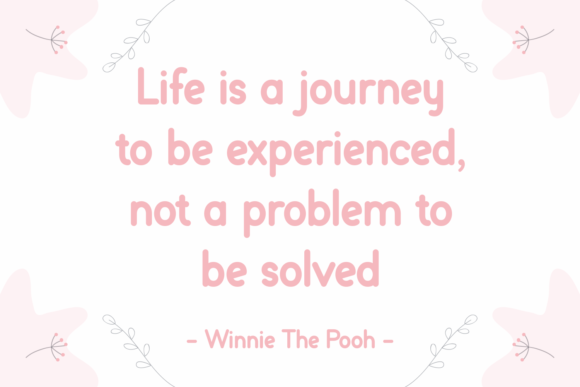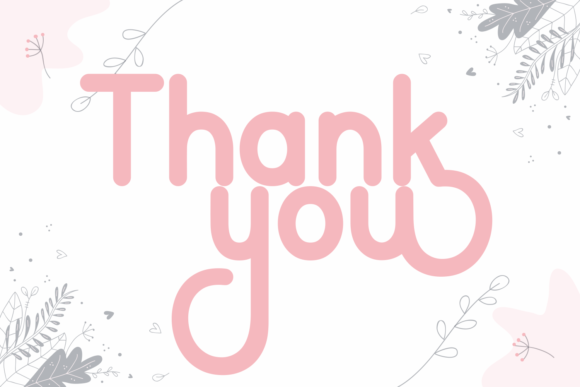
Introducing Calyna Font: The Sweet and Friendly Display Font You Need
Are you tired of using the same old fonts in your designs? Do you want to add a touch of sweetness and friendliness to your creations? Look no further than Calyna Font, a delightful display font that’s sure to elevate your font library. In this article, we’ll dive into the world of Calyna Font, exploring its features, benefits, and uses, and why it’s an incredibly valuable asset for designers and crafters alike.
What is Calyna Font?
Calyna Font is a sweet and friendly display font designed to add a personal touch to your designs. With its unique and charming lettering style, Calyna Font is perfect for a wide range of projects, from branding and advertising to crafting and DIY tutorials. Whether you’re creating a logo, a poster, or a social media graphic, Calyna Font is sure to make your design stand out.
Features of Calyna Font
So, what makes Calyna Font so special? Here are just a few of its key features:
- Unique lettering style: Calyna Font boasts a distinctive and eye-catching lettering style that’s both sweet and sophisticated.
- High-quality design: With its clear and crisp lines, Calyna Font is perfect for use in both digital and print designs.
- Versatile: Calyna Font can be used for a wide range of projects, from formal and professional designs to more playful and creative ones.
- Easily readable: Despite its unique style, Calyna Font is incredibly easy to read, making it perfect for use in body text as well as headlines.
Benefits of Using Calyna Font
So, why should you choose Calyna Font for your next design project? Here are just a few benefits of using this amazing font:
- Adds a personal touch: Calyna Font’s sweet and friendly style adds a personal touch to your designs, making them more approachable and engaging.
- Elevates your brand: With its unique and sophisticated style, Calyna Font can help elevate your brand and make it stand out from the competition.
- Perfect for crafty projects: Calyna Font is perfect for crafty projects, such as DIY tutorials, crafting patterns, and handmade product labels.
- Great for social media: Calyna Font’s friendly and approachable style makes it perfect for use in social media graphics, such as Facebook posts, Instagram captions, and Twitter headers.
How to Use Calyna Font
- Pair it with other fonts: Calyna Font pairs perfectly with other fonts, such as sans-serif fonts like Arial or Helvetica.
- Use it in headlines: Calyna Font’s unique style makes it perfect for use in headlines and titles.
In conclusion, Calyna Font is a sweet and friendly display font that’s sure to elevate your font library. With its unique lettering style, high-quality design, and versatility, Calyna Font is perfect for a wide range of projects, from branding and advertising to crafting and DIY tutorials. Whether you’re a designer, crafter, or DIY enthusiast, Calyna Font is an incredibly valuable asset that’s sure to make your designs stand out. So why wait? Download Calyna Font today and start adding a touch of sweetness and friendliness to your creations!